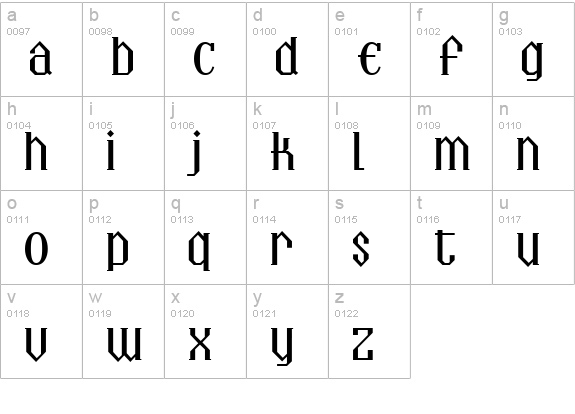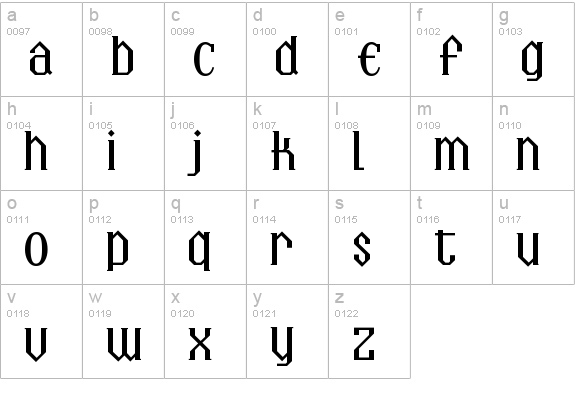
Landmark font is a stunning and versatile typeface that is sure to captivate and leave a lasting impression. With its unique blend of elegance and modernity, this font is perfect for adding a touch of sophistication to any design project. Its sleek and clean lines lend themselves well to a wide range of applications, from branding and logo design to editorial layouts and website headers. What sets Landmark font apart is not just its exceptional aesthetics, but also the fact that it is available for free. Yes, you read that correctly - Landmark font is freely available to download at FontsMarket.com. This means that you can bring this incredible typeface into your creative arsenal without breaking the bank. Whether you are a professional graphic designer or a hobbyist looking to elevate your creations, Landmark font is a must-have. Its versatility allows it to seamlessly adapt to various design styles and themes, making it a valuable asset for all your artistic endeavors. With Landmark font, you can effortlessly add a touch of elegance and sophistication to your projects. Its clean and crisp letterforms make for legible and visually pleasing text, while its carefully crafted details give it a unique and memorable personality. So why wait? Head over to FontsMarket.com and download Landmark font today. Explore its endless possibilities and let your creativity soar. With this incredible typeface at your fingertips, the only limit is your imagination. Embrace the freedom of expression that Landmark font brings and watch your designs come to life in ways you never thought possible.